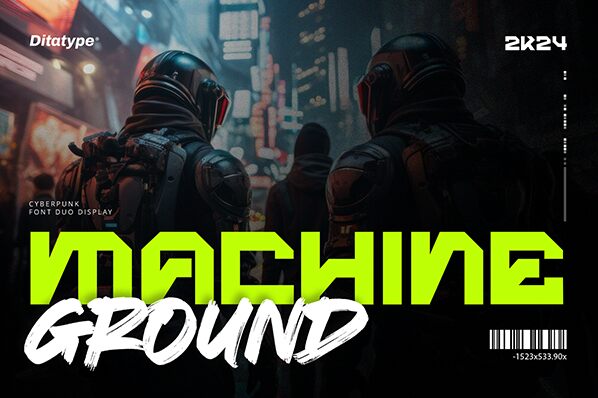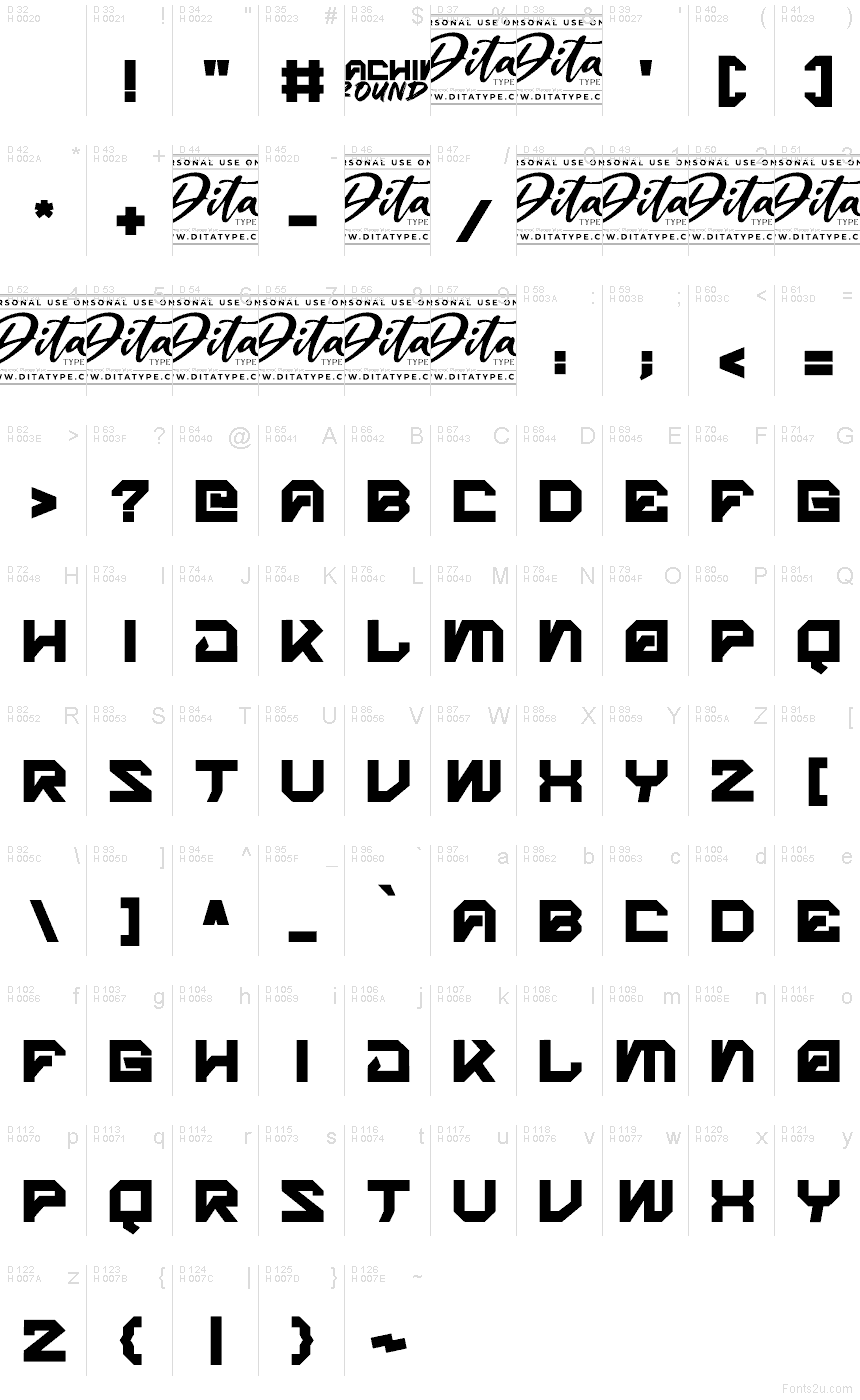
Machine Ground Display Personal Use Display
Machine Ground Display font by Ditatype is a free techno display typeface that looks like it was carved from neon circuitry. The Machine Ground family stacks tall, narrow letters into tight columns, with jagged diagonals and sliced corners that feel sharp to the touch. Its blocky rhythm and consistent stroke weight give every word the sense of a glowing, mechanical waveform pulsing across the screen.
Using Machine Ground Display, headlines snap into place for game logos, sci-fi posters, EDM flyers, esports branding, tech YouTube thumbnails, and futuristic packaging. This free font thrives at large sizes where its angular cuts and geometric tension can really show. Pair it with a clean geometric sans in a smaller size to keep supporting text readable while the Machine Ground Display typeface brings all the drama to your titles.